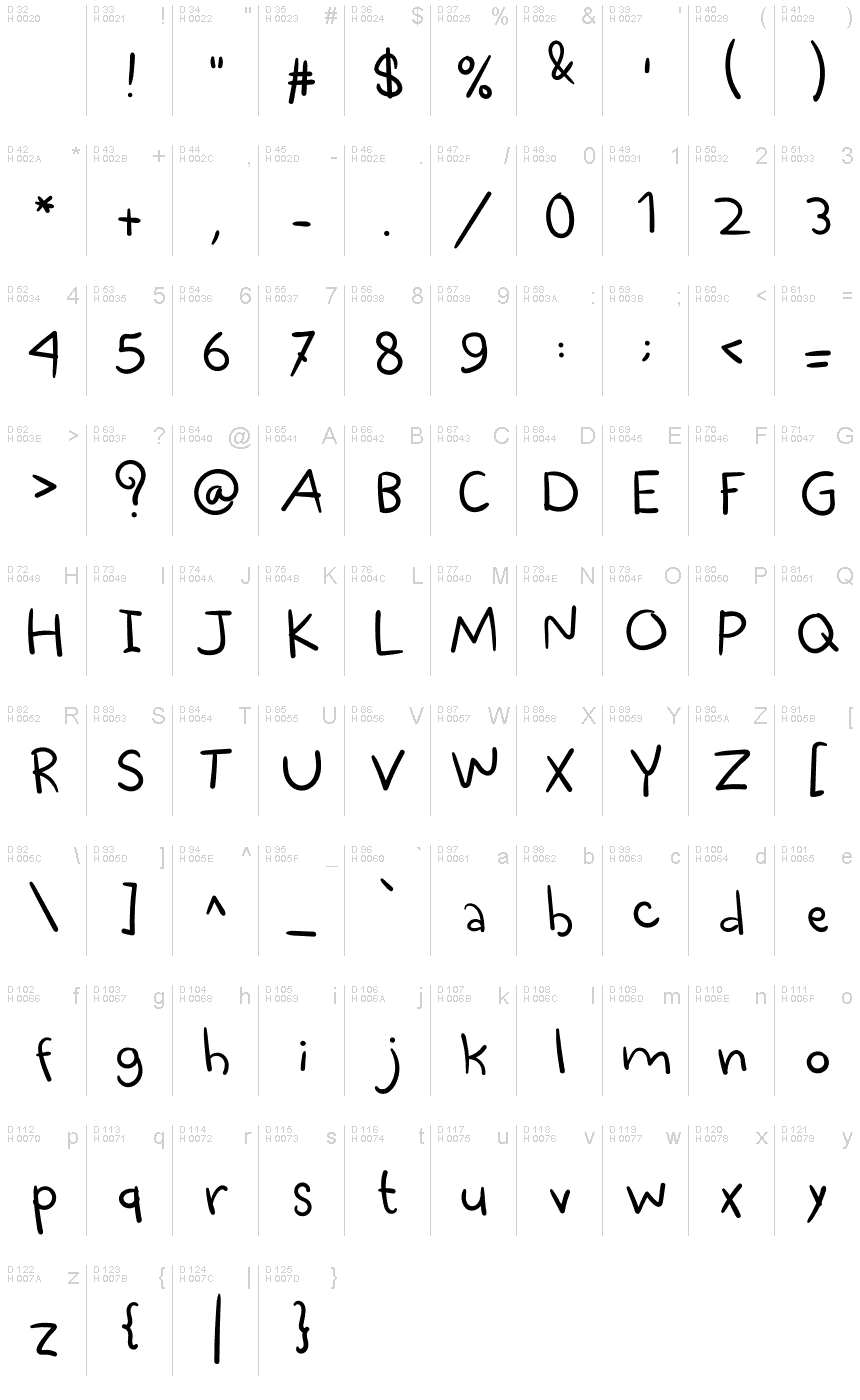
Childrens Art
Childrens Art is a whimsical and friendly handwritten font designed by Luluk Surotul, that can be used for all chalkboard quotes or teaching material! Its authentic look will add a personal and realistic feel to your designs.